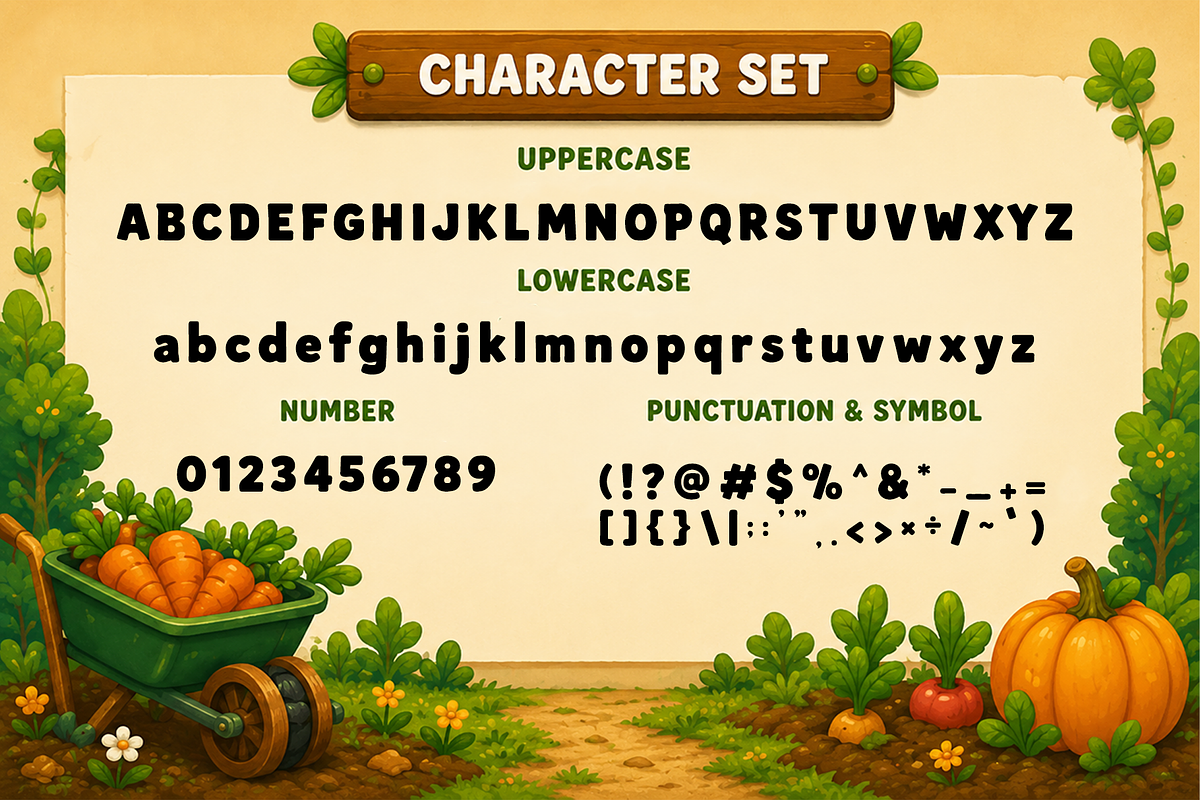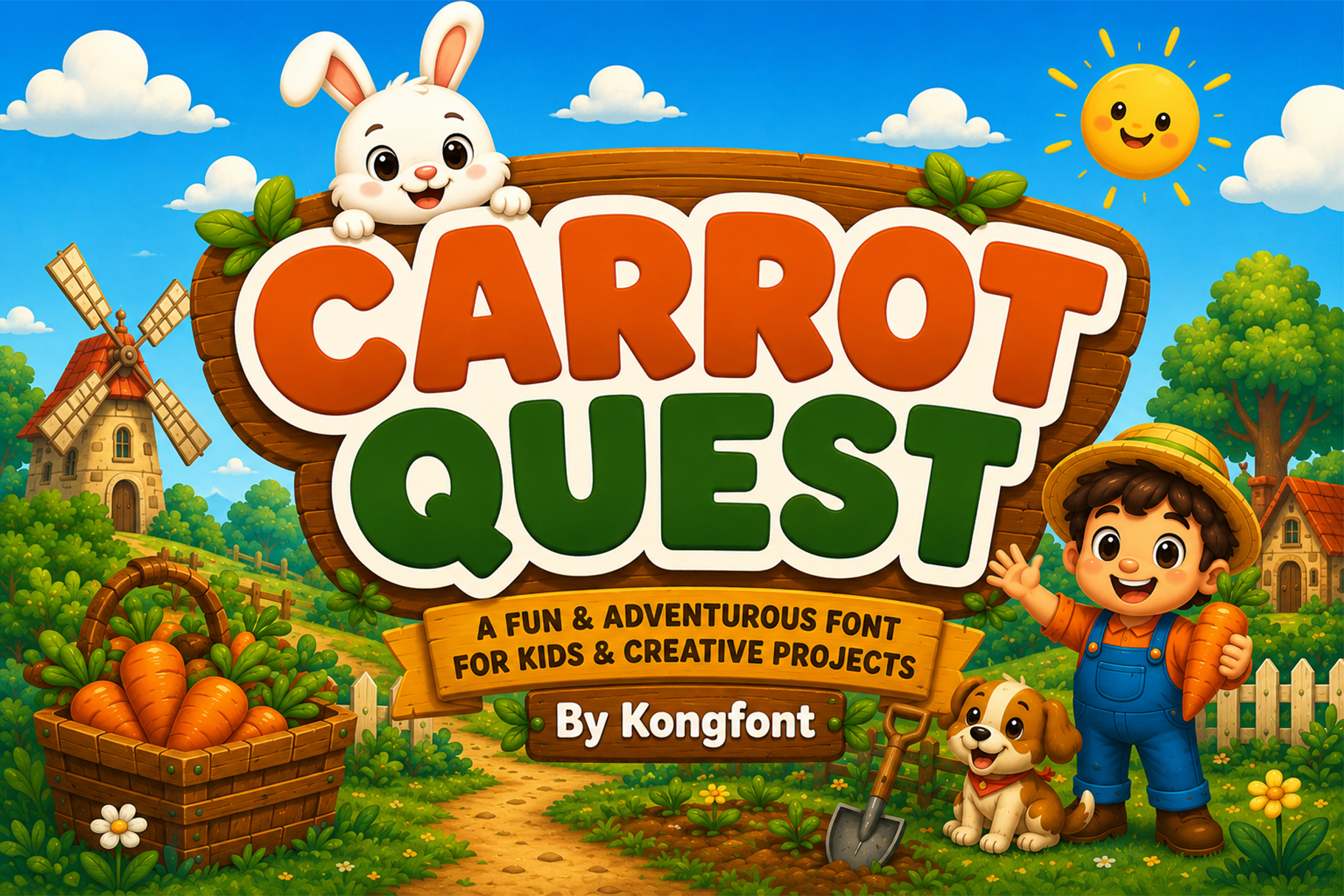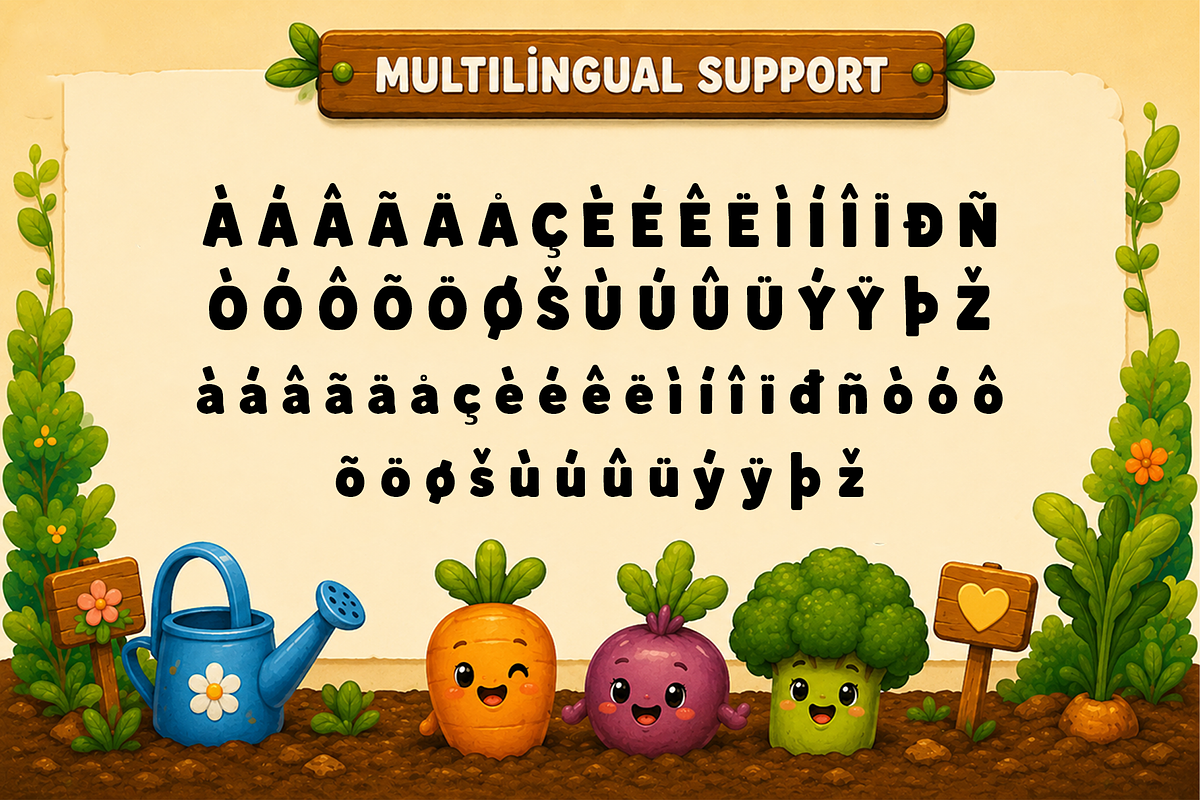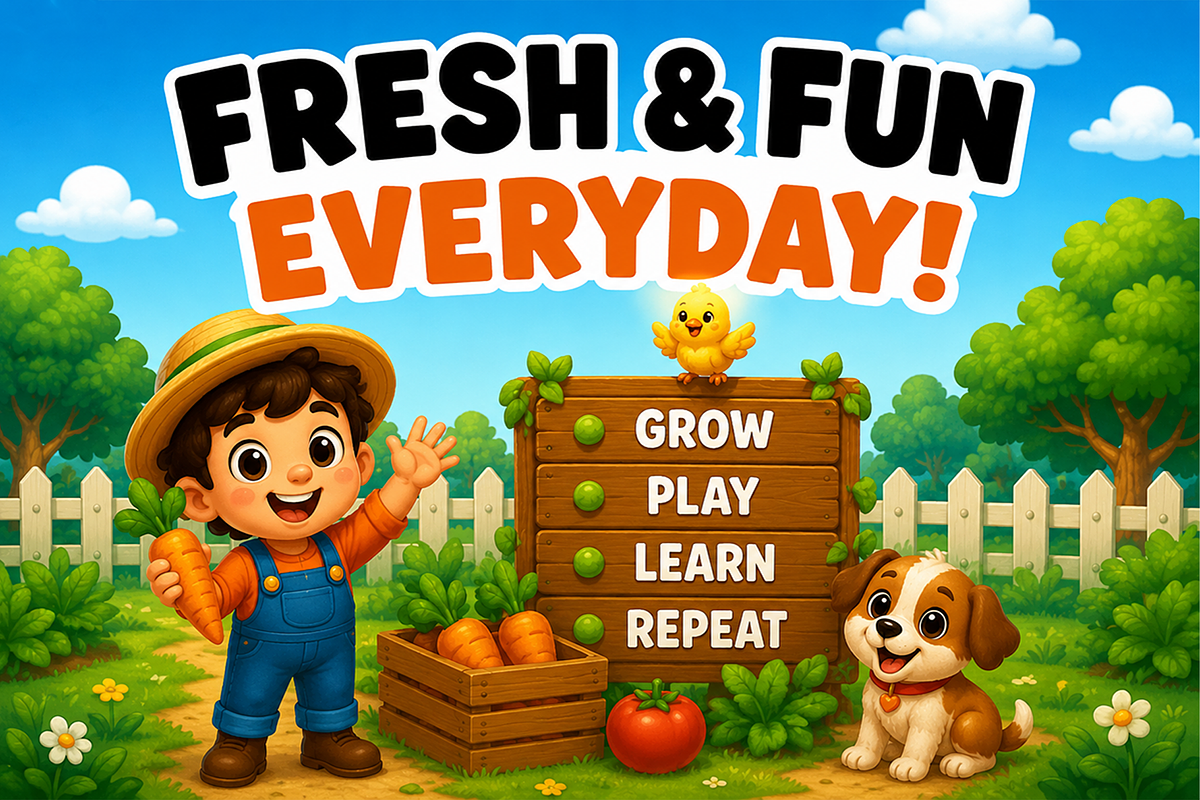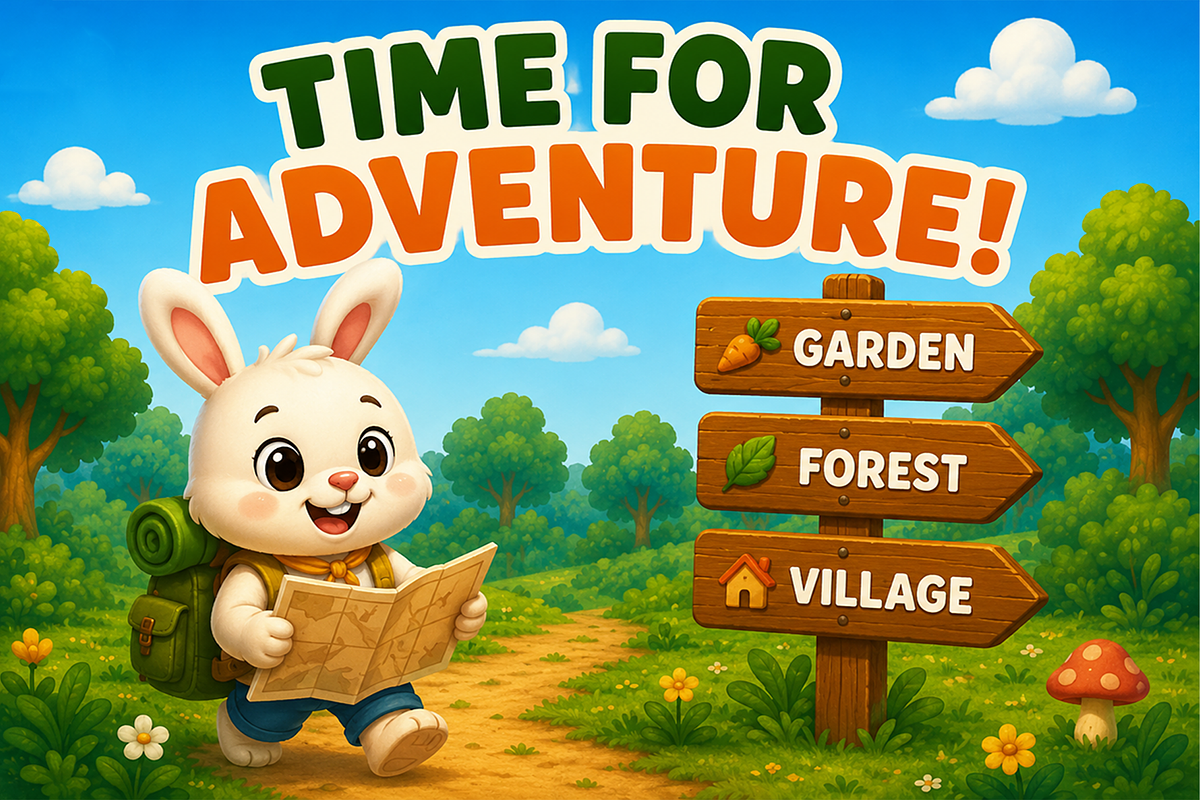
Carrot Quest - Fun Kids Display Font
Introducing Carrot Quest, a fun and playful kids display font inspired by cheerful farm adventures, fresh harvests, and the joy of outdoor exploration. With its bold rounded letterforms and friendly personality, Carrot Quest is designed to bring warmth, excitement, and imagination to every creative project.
Perfect for children's books, educational materials, farming games, mobile apps, toy packaging, classroom resources, logos, posters, birthday invitations, stickers, and playful branding, this font delivers excellent readability while maintaining a charming handcrafted feel. The complete character set includes uppercase and lowercase letters, numbers, punctuation, multilingual support, and essential symbols for versatile design needs.